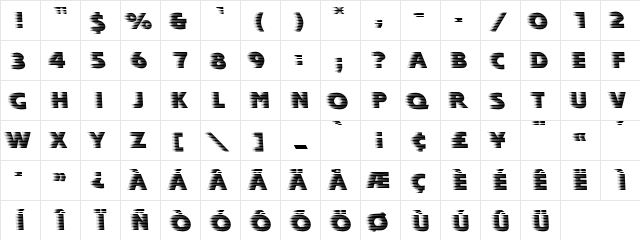
ipstreamSpeedy Vertical Font Preview
ipstreamSpeedy Vertical
Design Context for ipstreamSpeedy Typeface
ipstreamSpeedy is a composed and adaptable typeface that performs quietly and consistently across a wide range of design contexts.